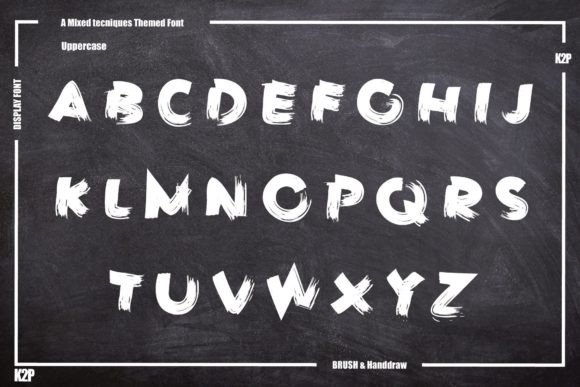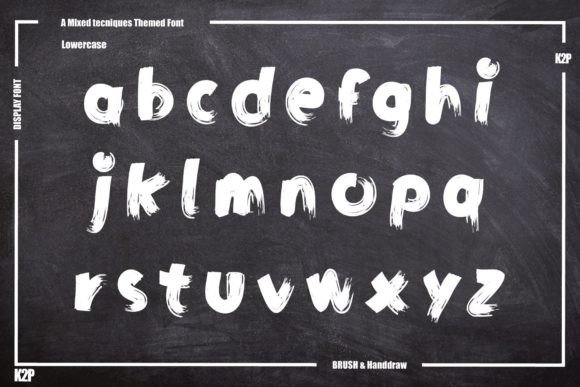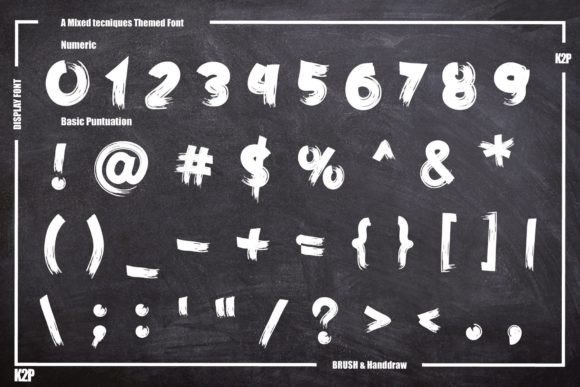
Getting Back to Basics: The Joy of Creative Expression
Who else remembers the thrill of opening their pencil case on the first day of school, surrounded by fresh notebooks and bright pens? The excitement of learning something new, the thrill of making new friends – it’s a feeling that never truly fades. And what’s a key part of that experience? The fonts that bring it all to life!
Enter the Back to Skool Font, a playful, thick-lettered font that screams ‘fun’ and ‘education’. This unique decorative font is a must-have for designers looking to bring a touch of nostalgia and whimsy to their designs. With its PUA encoding, accessing all the glyphs and swashes is a breeze, making it the perfect tool for creatives looking to add a little extra magic to their work.
Back to Skool Font Key Features
- Font Family: Back to Skool Font is a digital font family designed by Alan Meeks in 1984, inspired by the lettering in the classic 1984 ZX Spectrum game “The Neverhood”.
- Unique Characteristics: The font features distinctive rounded edges and a playful, retro aesthetic, making it ideal for nostalgic and vintage-themed designs.
Back to Skool Font Review
Overall, I think the Back to Skool Font is a solid choice for designers looking for a fun and playful aesthetic. ✨ The font is highly customizable, with a wide range of styles and options available. It’s perfect for creating eye-catching posters, flyers, and other marketing materials.
The font is also highly legible, making it suitable for a variety of applications, from body text to headings. The designer has done a great job of balancing playfulness with readability, resulting in a font that’s both fun and effective. ✨
- Wide range of styles and options
- Legible and easy to read
- Perfect for playful and eye-catching designs
Limitediations:
- May not be suitable for formal or professional designs
- Some styles may be too bold or overpowering
- Not ideal for large blocks of text
Overall, I’d give the Back to Skool Font 4 out of 5 stars. It’s a great choice for designers who want to add a bit of whimsy and fun to their designs. Just be aware of the potential limitations, and use your best judgment when choosing which styles to use. ⚠️
The Back to Skool Font is a great choice for retro-themed designs, educational materials, and children’s content. Use it to add a fun and playful touch to your projects.
- Retro-style posters and flyers
- Children’s book covers and illustrations
- Educational materials and worksheets